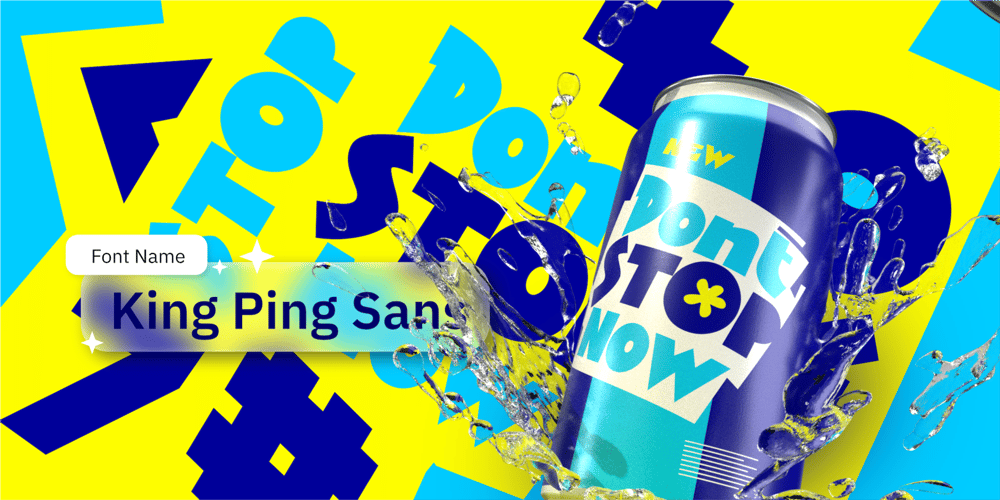
King Ping Sans Font Family was designed by Wahyu Eka Prasetya, Afiat Sukmaraga and published by Hati. King Ping Sans contains 1 styles and family package options. King Ping isn’t your average typeface. It’s a bold declaration, a burst of youthful energy condensed into letterform. Thick strokes and dynamic curves exude confidence and power, making it perfect for capturing the spirit of young hearts chasing dreams. This font will elevate logos, headlines, and any message that demands attention.